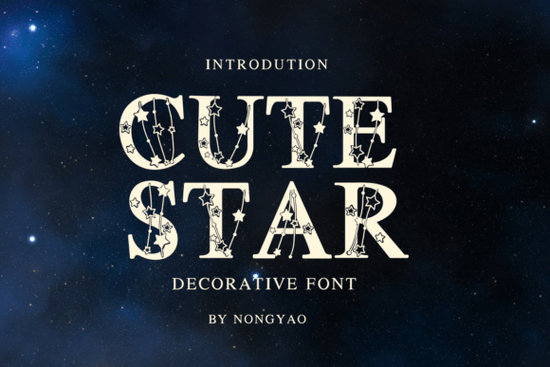
If you’ve ever wanted your handwritten notes or greeting cards to feel extra cheerful and personal, a playful decorative font like Cute Star Font might be just what you need. Designed with soft curves, whimsical details, and a touch of sparkle, it brings warmth and charm to everyday creative projects whether you're journaling, designing printable stationery, or customizing mugs for your online shop.
Unlike stiff, formal typefaces, Cute Star leans into its personality. It’s not meant to mimic corporate branding or minimalist aesthetics. Instead, it shines in contexts where friendliness and approachability matter most: birthday cards, classroom handouts, social media quotes, or even embroidery patterns for kids’ clothing. And because it’s from Creative Fabrica a trusted source for crafters and small business owners you get commercial-use rights built right in.
What kinds of projects work best with Cute Star Font?
This font isn’t trying to do everything, and that’s part of its appeal. It works beautifully when you want to convey lightheartedness without looking childish. Here are some real-world uses that fit naturally:
- Hand-lettered-style greeting cards – Pair it with watercolor backgrounds or simple line drawings.
- Personalized journals or planners – Use it for section headers, mood trackers, or weekly affirmations.
- Social media graphics – Ideal for Instagram quote posts or Pinterest pins with motivational messages.
- Print-on-demand products – Think tote bags, mugs, or T-shirts featuring short phrases like “Good Vibes Only” or “You’re My Favorite.”
- Kids’ party invitations – Its rounded shapes and star-like terminals add subtle thematic flair.
If you enjoy mixing fonts for layered designs, consider pairing Cute Star with something clean and neutral like the Alex Font, which offers a smoother, modern contrast without competing visually.
Is this font easy to use for beginners?
One thing to keep in mind: because it’s a decorative font, readability decreases at very small sizes. Stick to headings, titles, or short phrases rather than body text. For longer passages, pair it with a legible sans-serif or serif companion font.
How does it compare to other playful fonts?
There’s no shortage of cute fonts out there, but many lean too heavily into gimmicks overly swirly tails, inconsistent spacing, or limited character sets. Cute Star avoids those pitfalls. It includes uppercase and lowercase letters, numerals, punctuation, and basic symbols, making it versatile enough for real-world use. Plus, its design feels cohesive; every letter shares the same gentle rhythm and star-inspired terminals.
Tips for getting the most out of this font
To make your designs pop without overwhelming your audience:
- Use generous spacing – Decorative fonts often benefit from increased letter-spacing (tracking) to let their details breathe.
- Limit usage to one or two words – A full sentence in Cute Star can feel busy. Save it for emphasis.
- Stick to light or pastel backgrounds – Dark or busy textures can clash with its delicate strokes.
- Test print before mass production – Especially for physical products, ensure the fine details reproduce clearly on your chosen material.
Remember: the goal isn’t to make everything look “cute” it’s to add a moment of joy or warmth where it matters most.